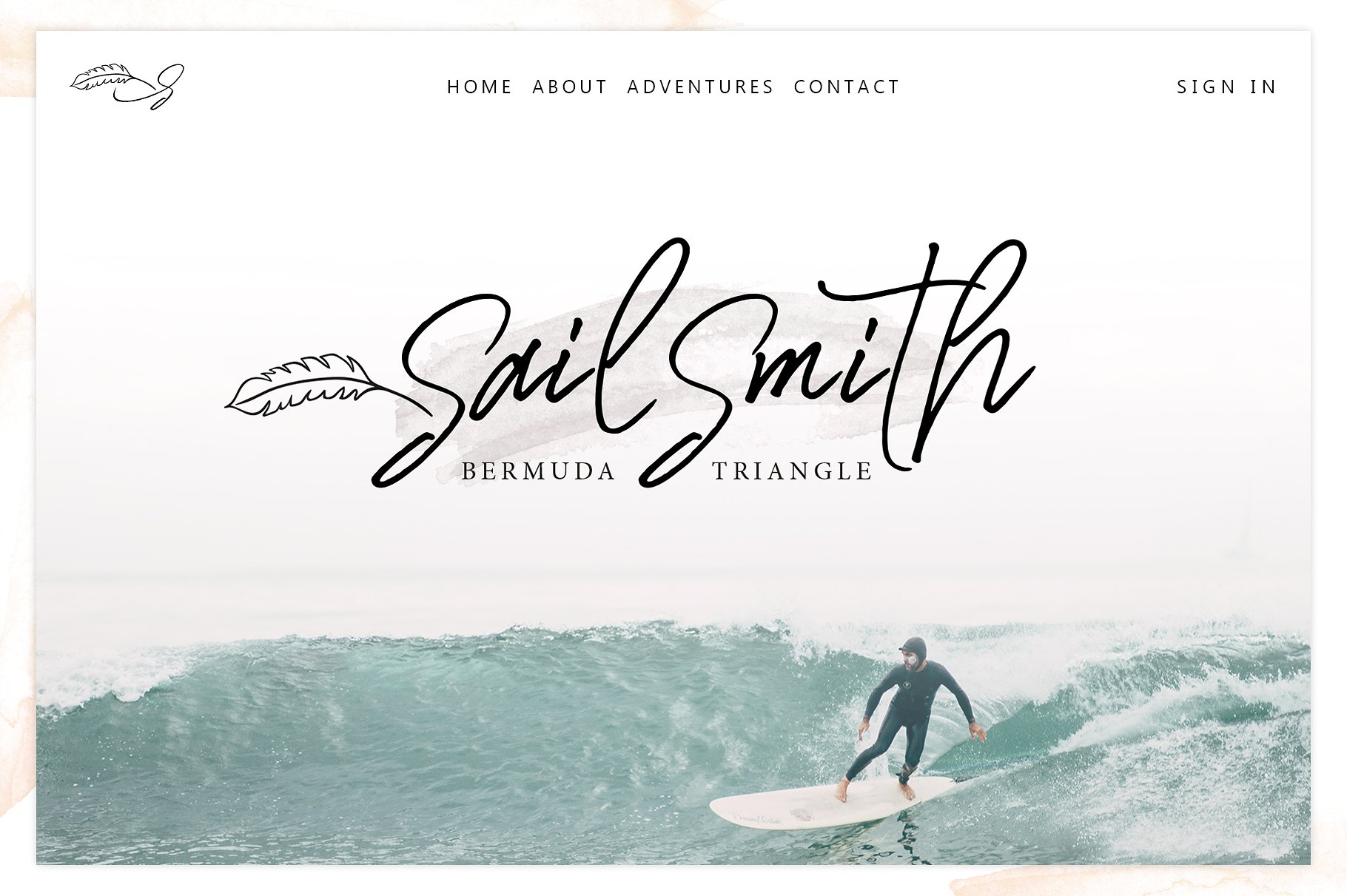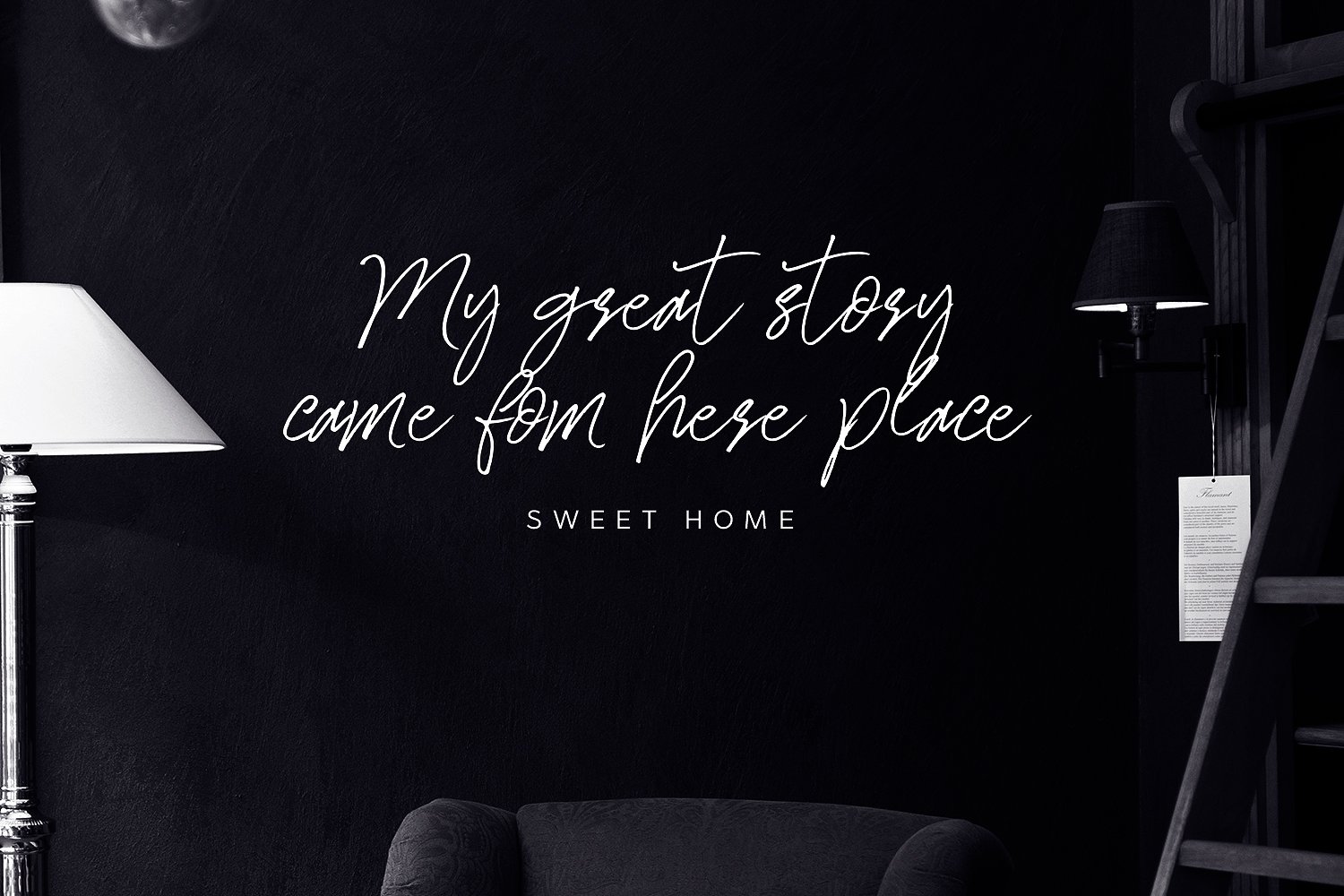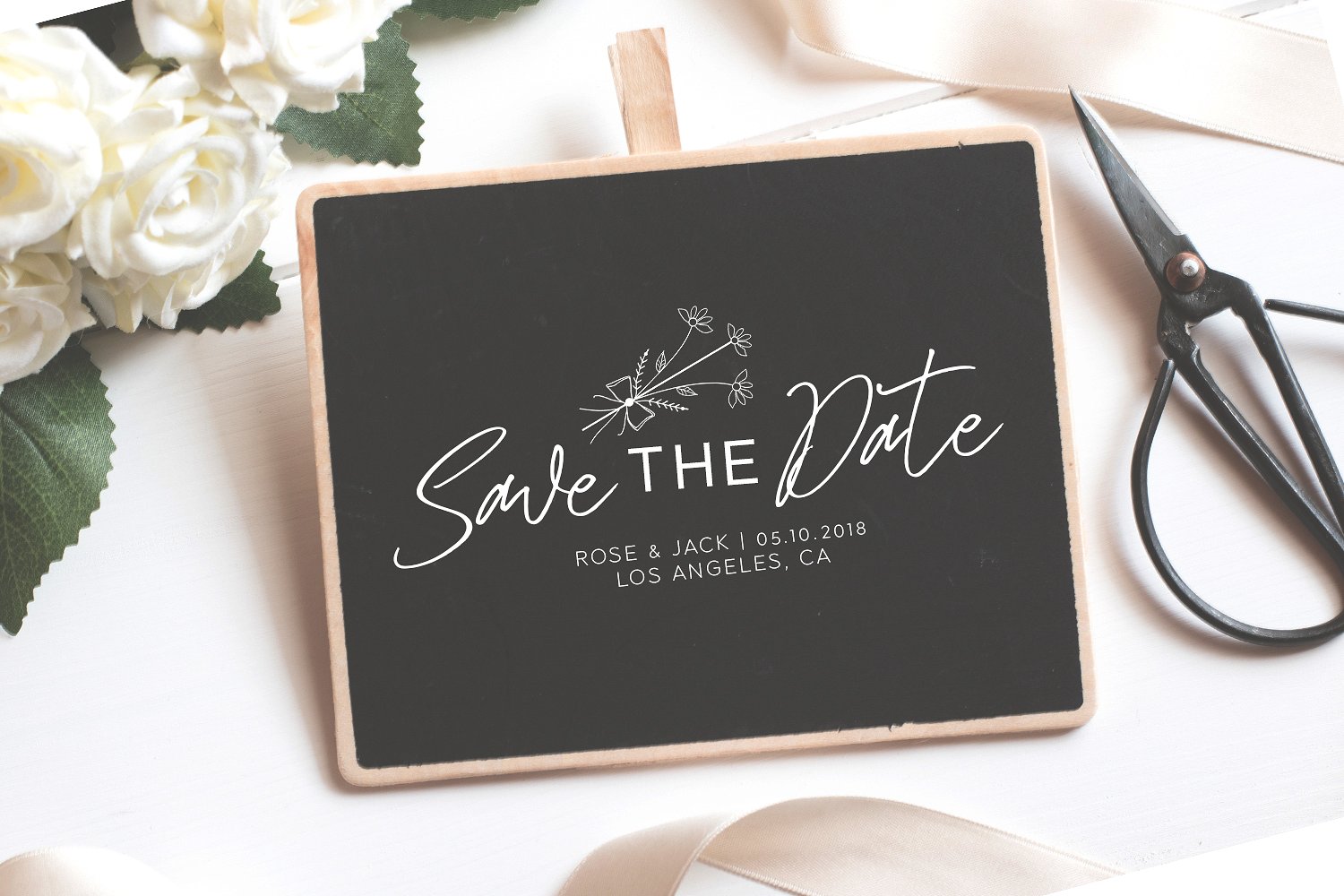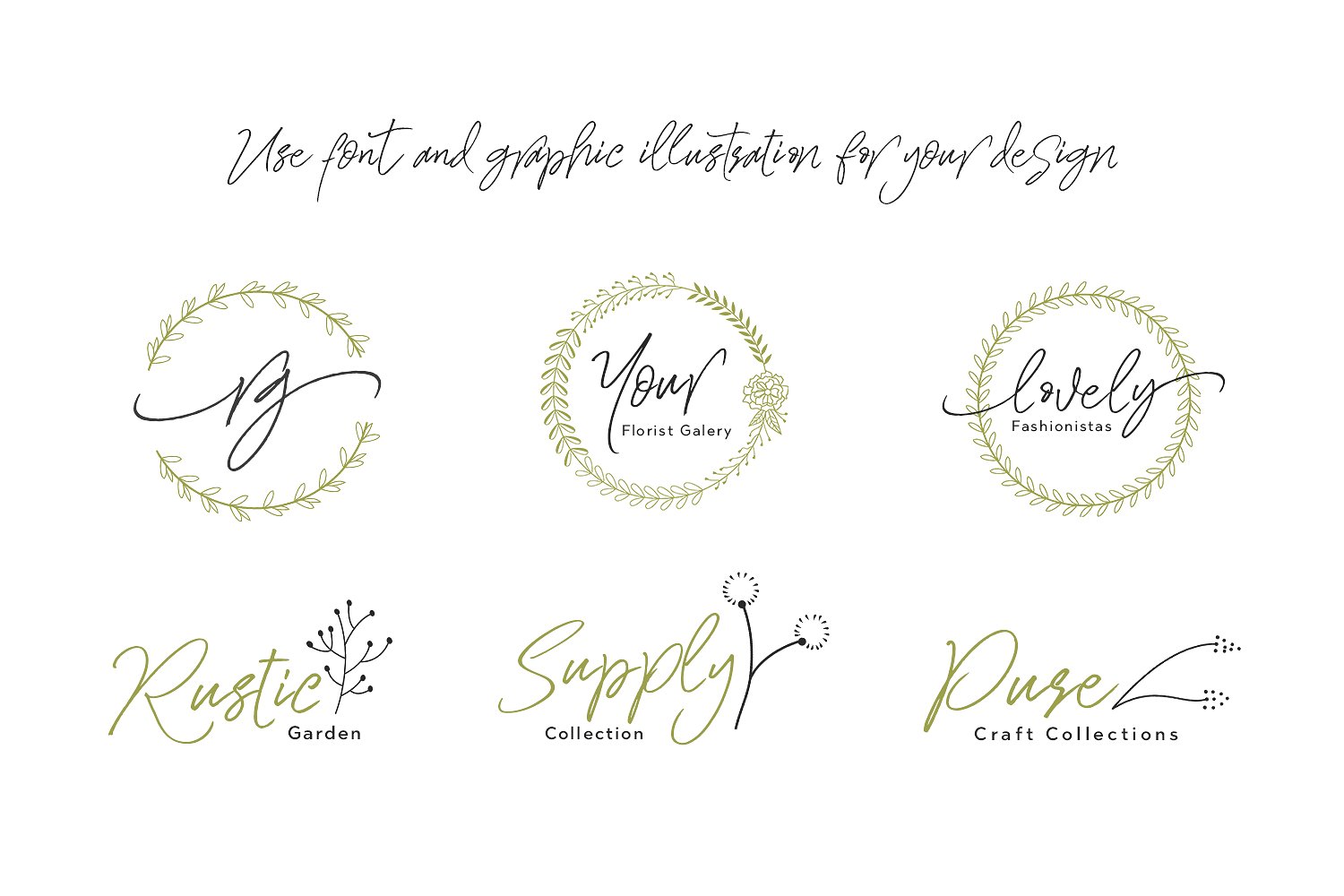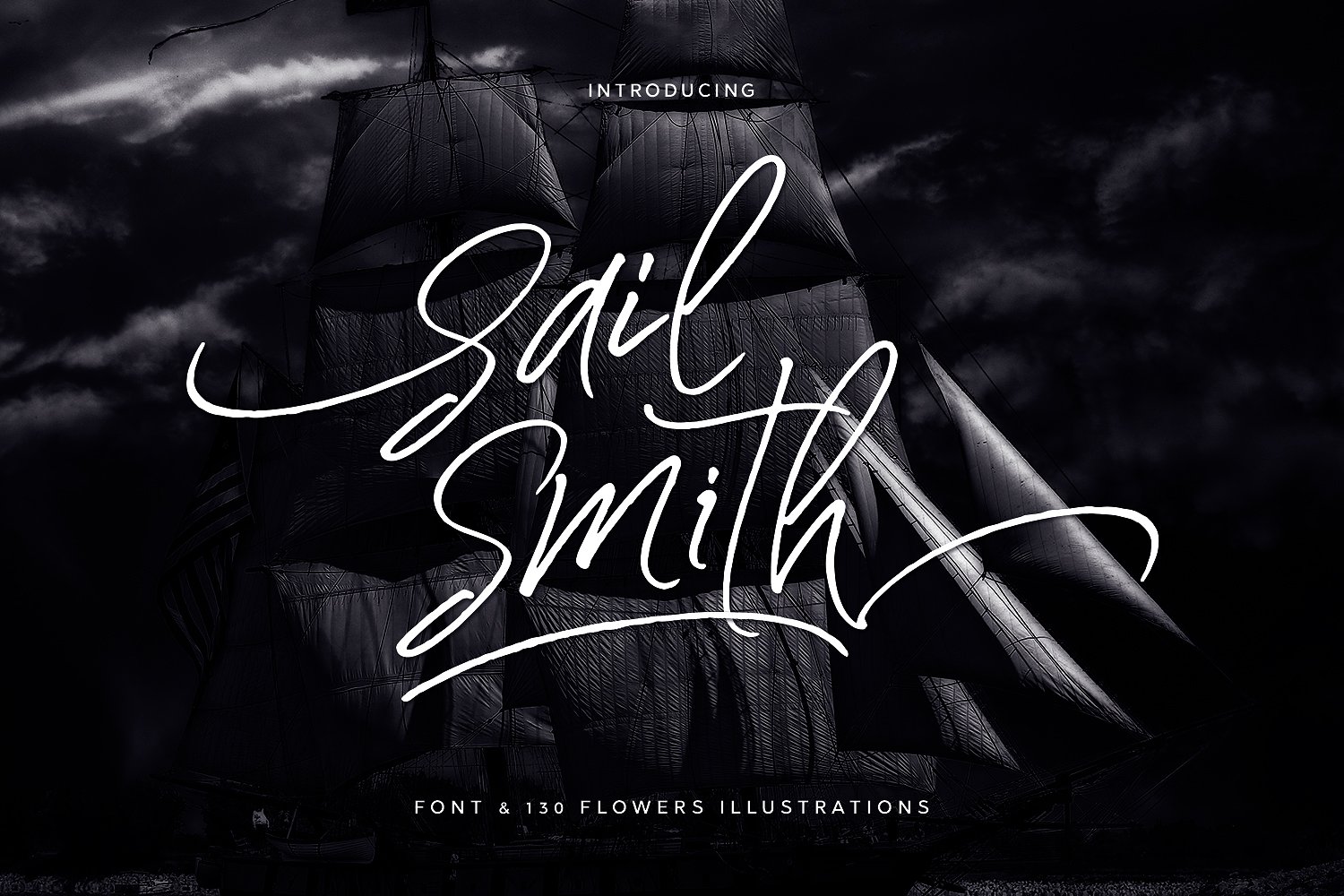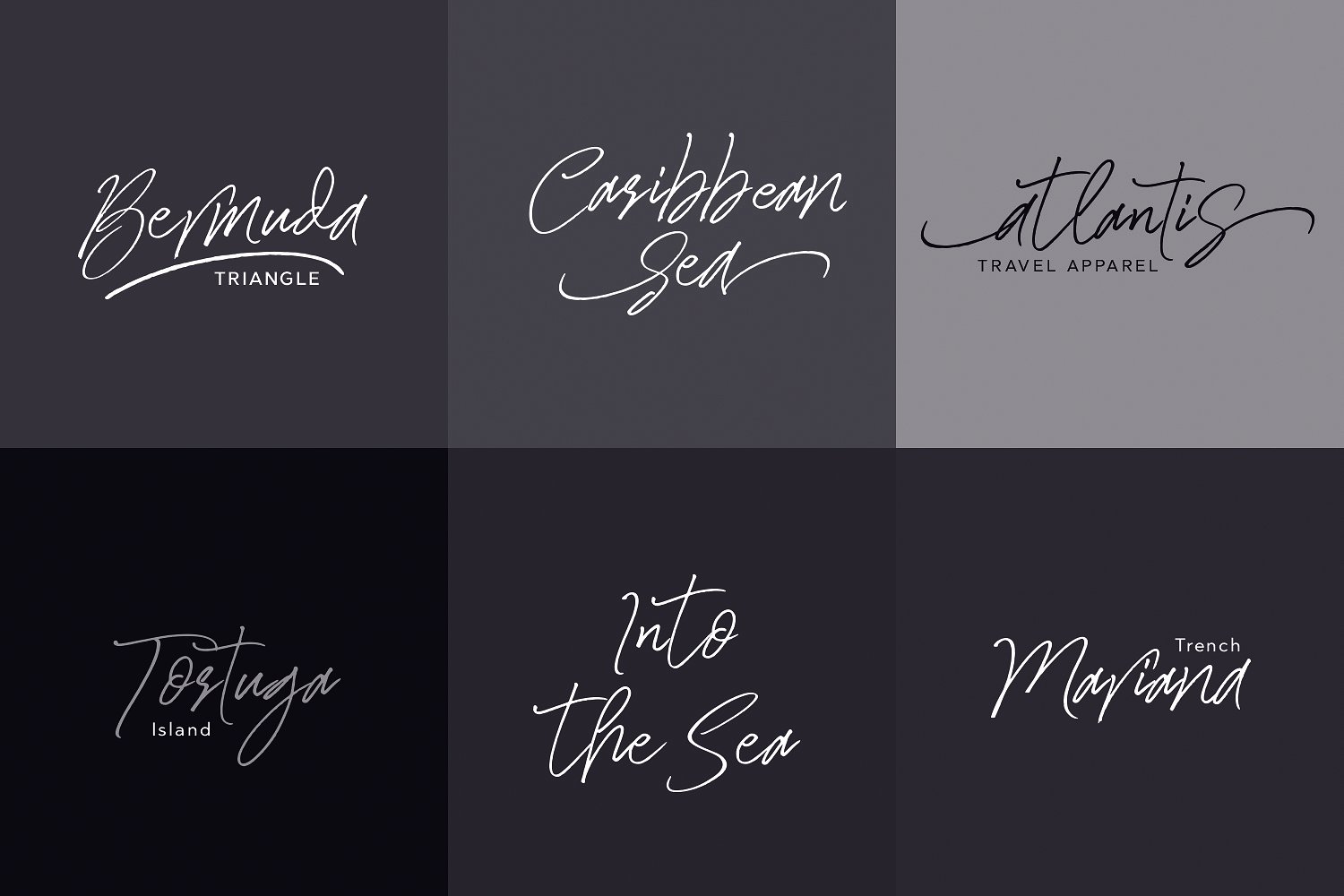
Sail Smith Font
Say hello to this new font!
Sail Smith! Following the style of modern calligraphy with a touch of script typeface, I wrote it spontaneously. I did this font nicely and I let it all look natural. Sail Smith has include with one alternative fariation for lowercase and alternate with swash. And of course have multi language support.